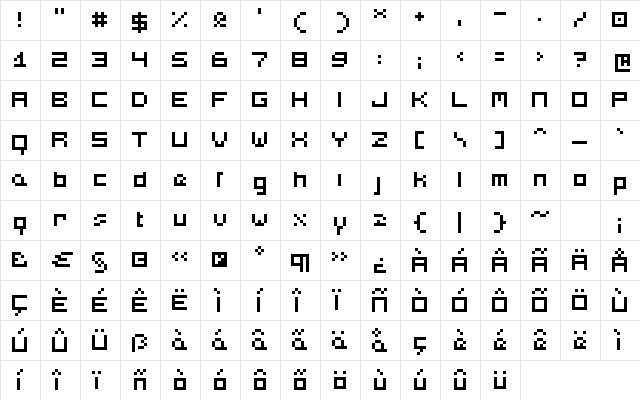
Bmf-20 Regular
Design Context for Bmf-20 Typeface
Bmf-20 is a composed and adaptable typeface that performs quietly and consistently across a wide range of design contexts.
Pro Tip: Pair Bmf-20 with a font of contrasting weight or personality to build a more expressive typographic hierarchy.